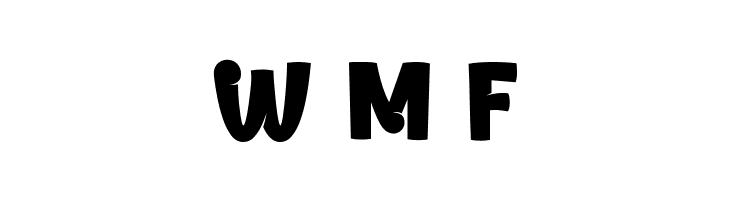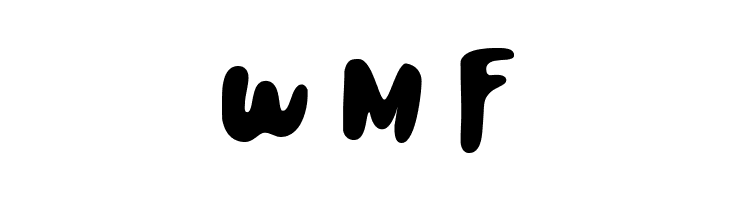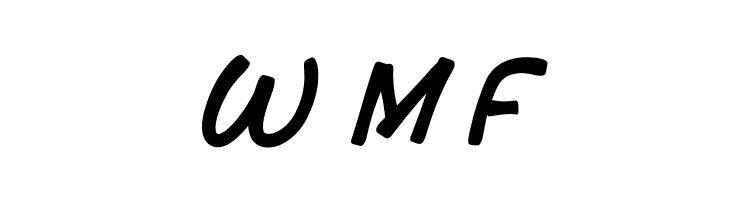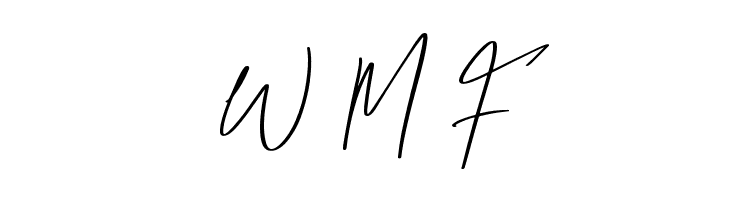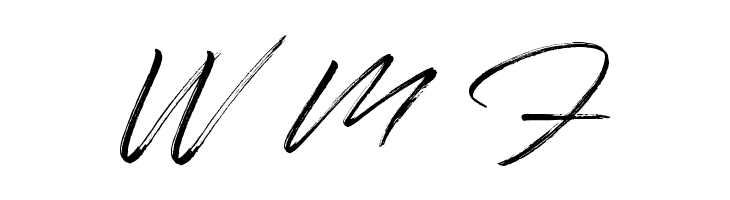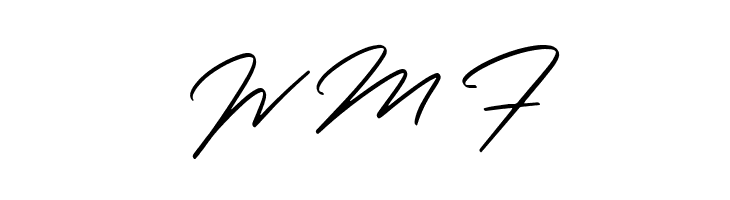
A playful, bold font with rounded, whimsical characters.
A bold, playful font with rounded strokes and a hand-drawn feel.
A bold, dynamic script font with fluid, energetic strokes.
A lively and expressive handwritten font with fluid, dynamic strokes.
A dynamic, expressive handwritten font with fluid, cursive strokes.
A bold, hand-painted style font with an expressive and artistic feel.
An elegant and flowing script font with smooth, connected strokes.